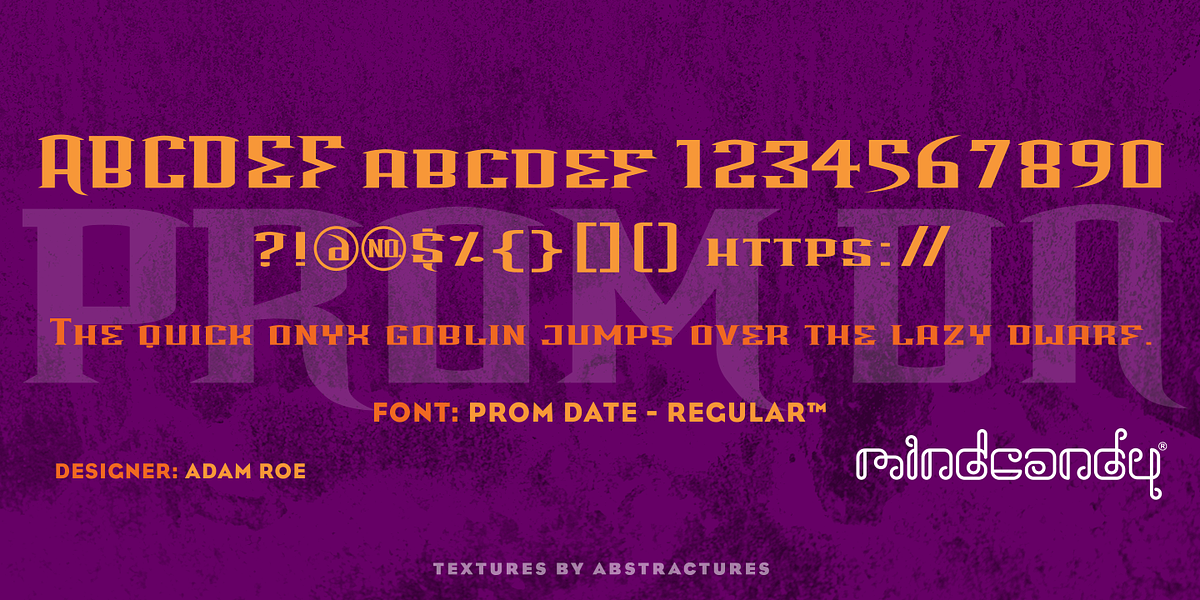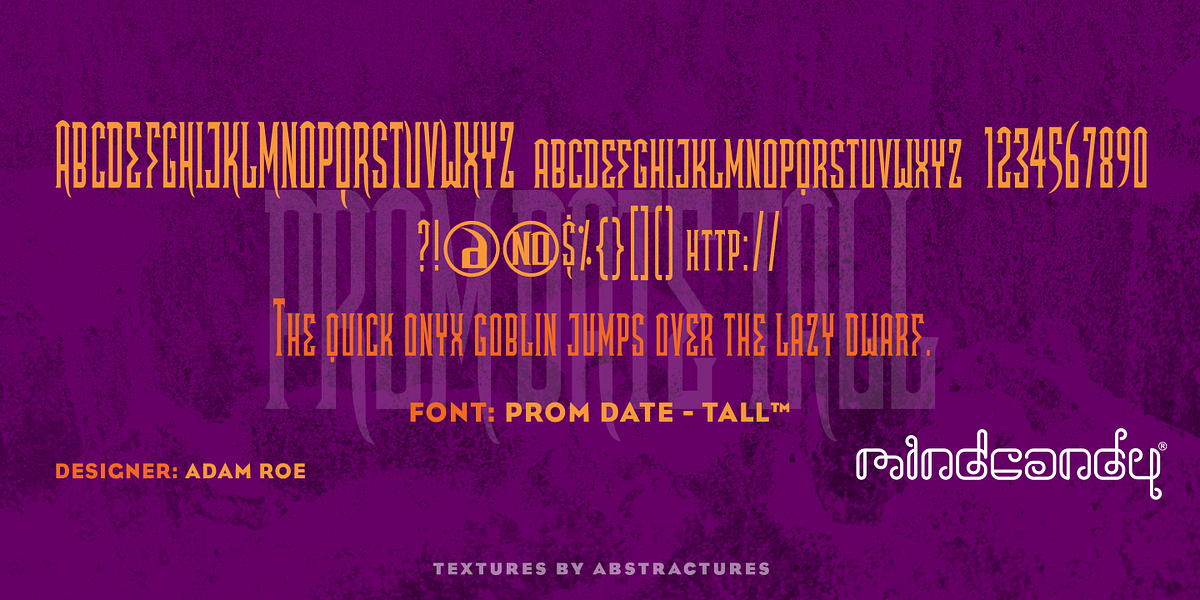
Promdate™
This font is a square serif typeface designed for display purposes. It's bold and attention-grabbing, making it suitable for headlines and other visual elements.